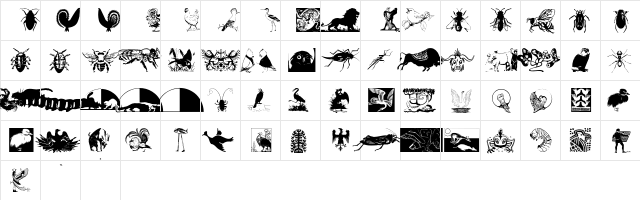
Zoology Regular
Design Context for Zoology Typeface
Zoology is a composed and adaptable typeface that performs quietly and consistently across a wide range of design contexts.
Pro Tip: Pair Zoology with a font of contrasting weight or personality to build a more expressive typographic hierarchy.